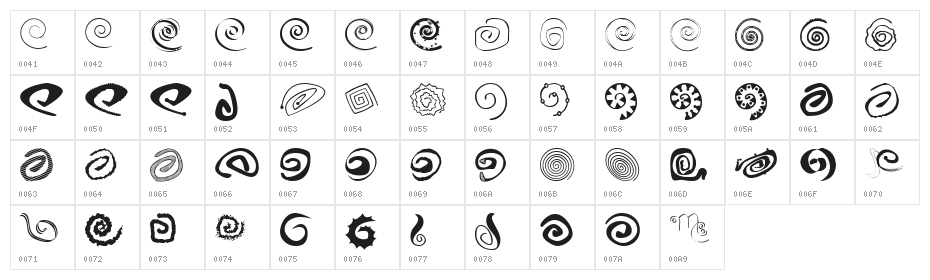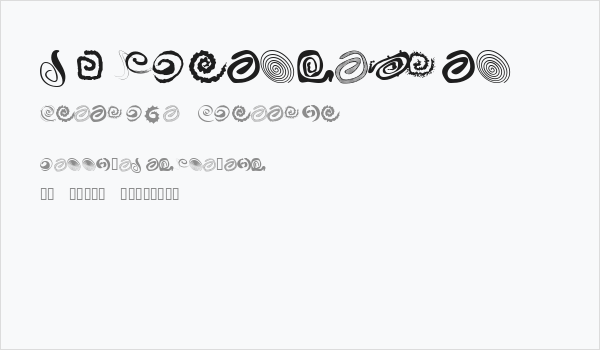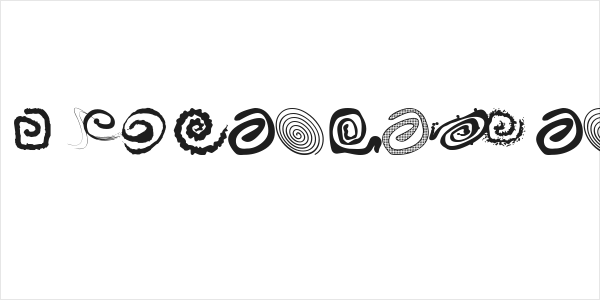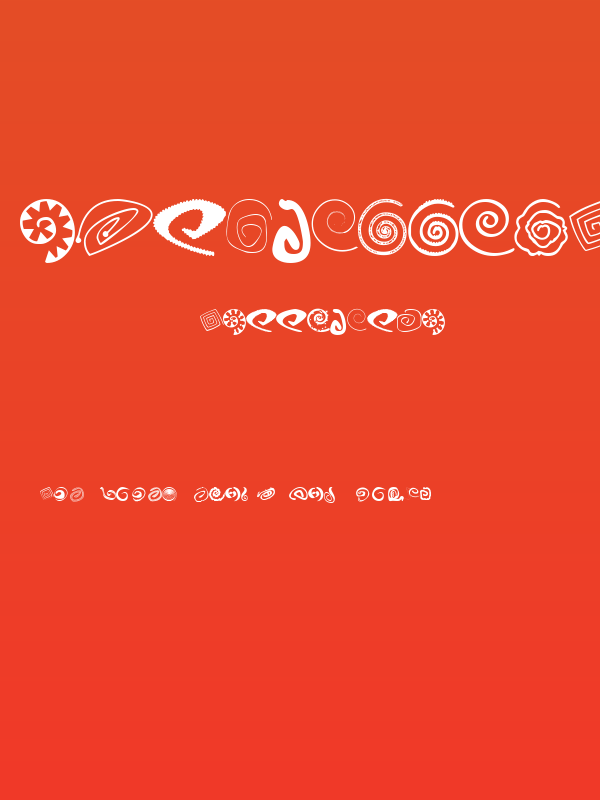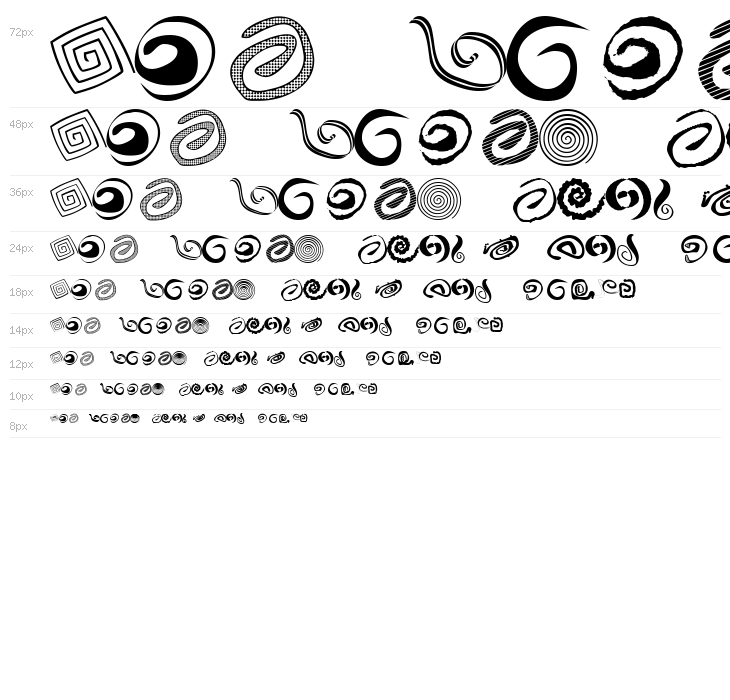
xspiralmental Font
xspiralmental Description
A highly decorative and experimental display font composed entirely of spiral and swirl motifs, with each character represented by a unique spiral design. The glyphs are abstract and non-traditional, focusing on visual impact rather than legibility, making it suitable for artistic or thematic projects.
| Overall Style | Decorative, Experimental, Psychedelic |
| Use Case | Logos, Posters, Artistic Titles |
| Proposed Projects | Psychedelic posters, album covers, event flyers, creative branding, art installations. |